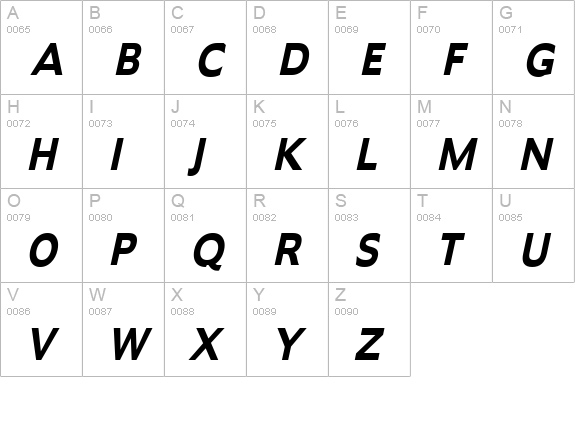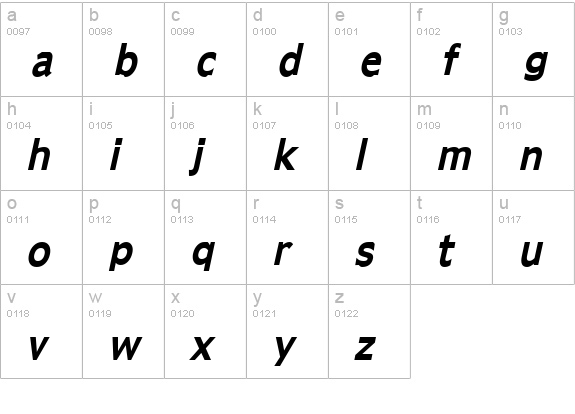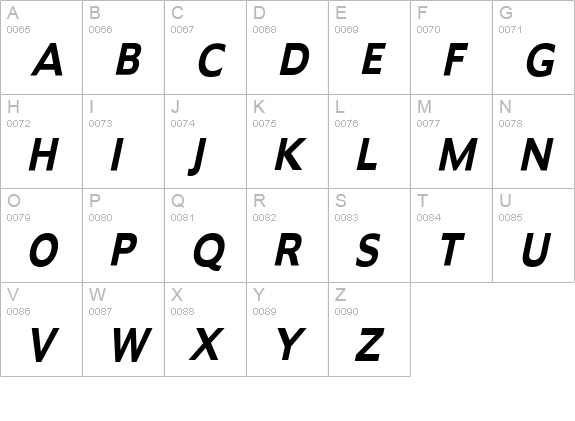
Adams Condensed Bold Italic is a strong, high-contrast, condensed-width, italic variant in the Adams typeface family \xE2\x80\x94 well suited to headlines, attention-grabbing titles, and strong calls-to-action.
Adams Condensed Bold Italic is a bold and dynamic typeface that exudes confidence and modernity. Its thick strokes and sleek italics give it a striking presence that commands attention. This font is perfect for headlines, titles, and branding materials that require a strong, assertive look. The unique combination of condensed letterforms and bold italic styling sets Adams Condensed apart from other fonts, making it a versatile choice for a variety of design projects. Whether you're creating posters, advertisements, or website headers, this font will make your message stand out with its bold and impactful appearance. Best of all, Adams Condensed Bold Italic is available for free download at FontsMarket.com. This means you can easily access this professional-quality font without any cost, making it a valuable addition to your design toolkit. Don't miss out on the opportunity to enhance your projects with the bold and stylish Adams Condensed Bold Italic font today!